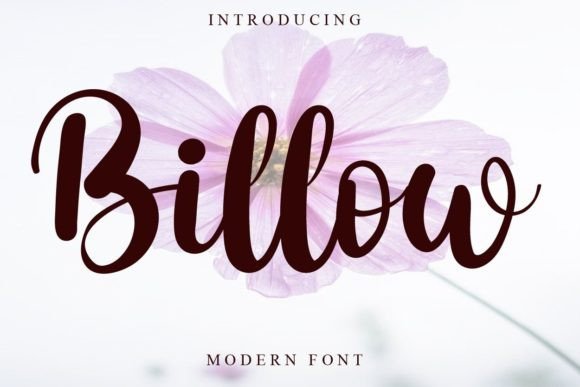
The Billow Font: A Fresh and Beautiful Handwritten Style for Your Designs
Have you ever been in the middle of a design project, and suddenly, you just can’t seem to find the right font? You’re not alone! I recall working on a wedding invitation project, and my client specifically asked for a font that was elegant, yet playful. After hours of searching, I stumbled upon the Billow font, and it was love at first sight! 💕
Billow is a fresh and beautiful handwritten font that’s perfect for a wide range of design projects, from YouTube banners and covers to logos, mockups, wedding invitations, ID cards, flyers, crafts, and many more! In this article, we’ll dive into the world of Billow font, exploring its features, how to use it, and some similar fonts you might love.
An Honest Review of Billow Font
What I Love About Billow Font ✨
- 💫 Fresh and modern design that’s perfect for contemporary projects
- 🎨 Versatile and adaptable to various design styles and themes
- 💖 Beautifully crafted with a personal touch, making it perfect for creative projects
While Billow font is an amazing addition to any design project, there are a few things to keep in mind:
- ⚠️ Limited availability of stylistic alternates, which might limit its use in certain projects
- 🤔 May not be the best choice for body text or long paragraphs, as it’s designed for headlines and titles
The Story Behind Billow Font
Billow font was designed with love and care by a talented type designer who’s passionate about creating beautiful and functional fonts. The designer’s inspiration came from a mix of traditional handwriting and modern digital design, resulting in a unique and captivating font that’s perfect for creative projects.
| Font Name | Billow Font |
| Author | ABBAsalam |
Q: What type of projects is Billow font best suited for?
A: Billow font is perfect for a wide range of design projects, including YouTube banners, covers, logos, mockups, wedding invitations, ID cards, flyers, crafts, and many more!
Q: Is Billow font available in different languages?
A: Billow font may not be available in all languages, but it’s designed to work with a wide range of languages that use the Latin alphabet.